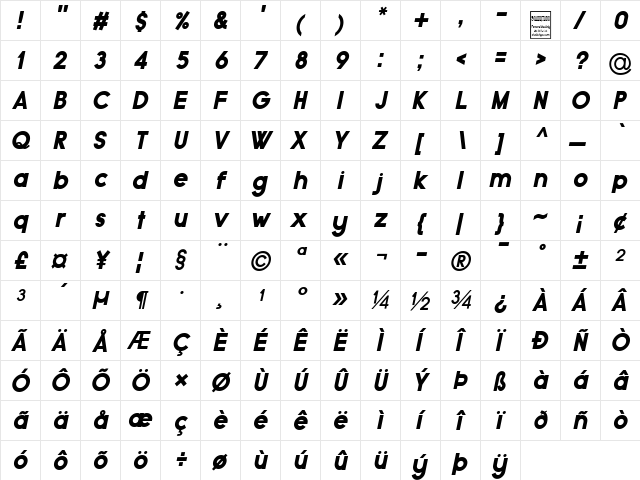
Typo Grotesk Black Italic
Design Context for Typo Grotesk Black Typeface
Typo Grotesk Black has the quiet confidence of well-executed sans-serif typography: versatile, unobtrusive, and dependable at any size. The slanted form adds forward momentum and visual energy.
Font Pairing: Works well alongside a characterful serif or display font that can carry the expressive load while Typo Grotesk Black handles the functional copy.
Pro Tip: Pair Typo Grotesk Black with a display or serif font for headlines — its neutral character makes it an excellent supporting player in complex typographic systems.